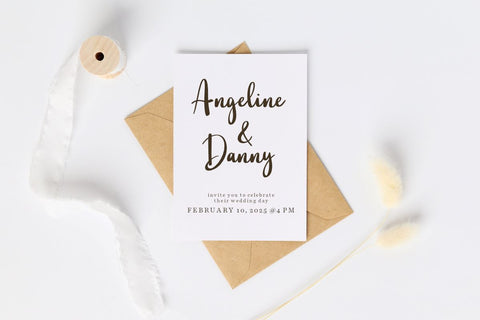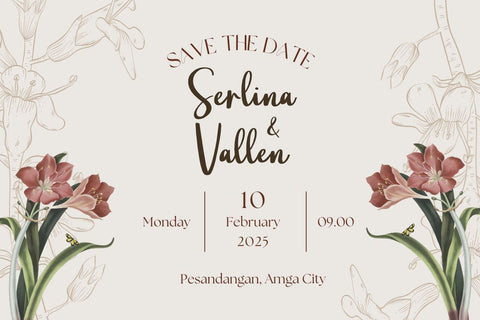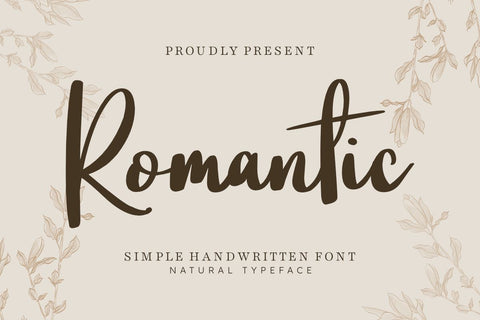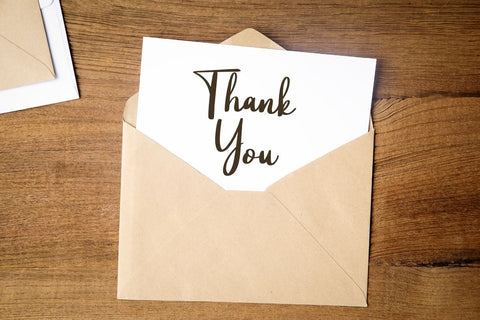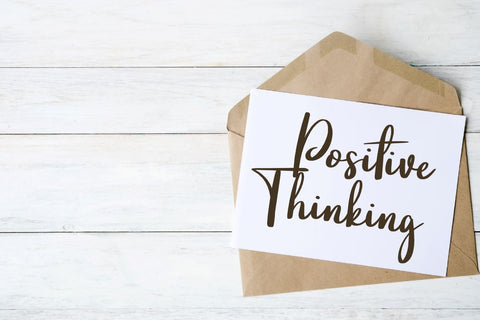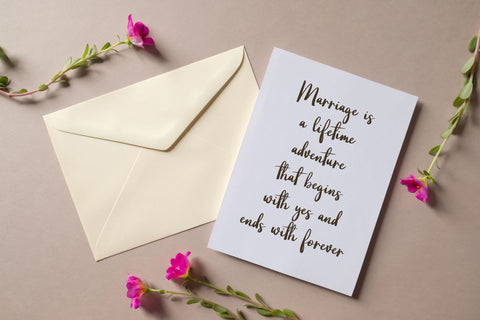
Romantic - Wedding Handwritten Font
Introducing "Romantic", an exquisitely crafted handwritten script font. Its design melds the authenticity of natural hand strokes, bringing a sense of simplicity infused with undeniable elegance. Whether you're immersing your wedding cards with heartfelt messages, shaping striking quotes for Cricut, crafting a unique brand identity, designing alluring labels, or personalizing names through sublimation, the Romantic font imparts an effortlessly beautiful and simplistic touch to any project, making it one-of-a-kind and utterly memorable.